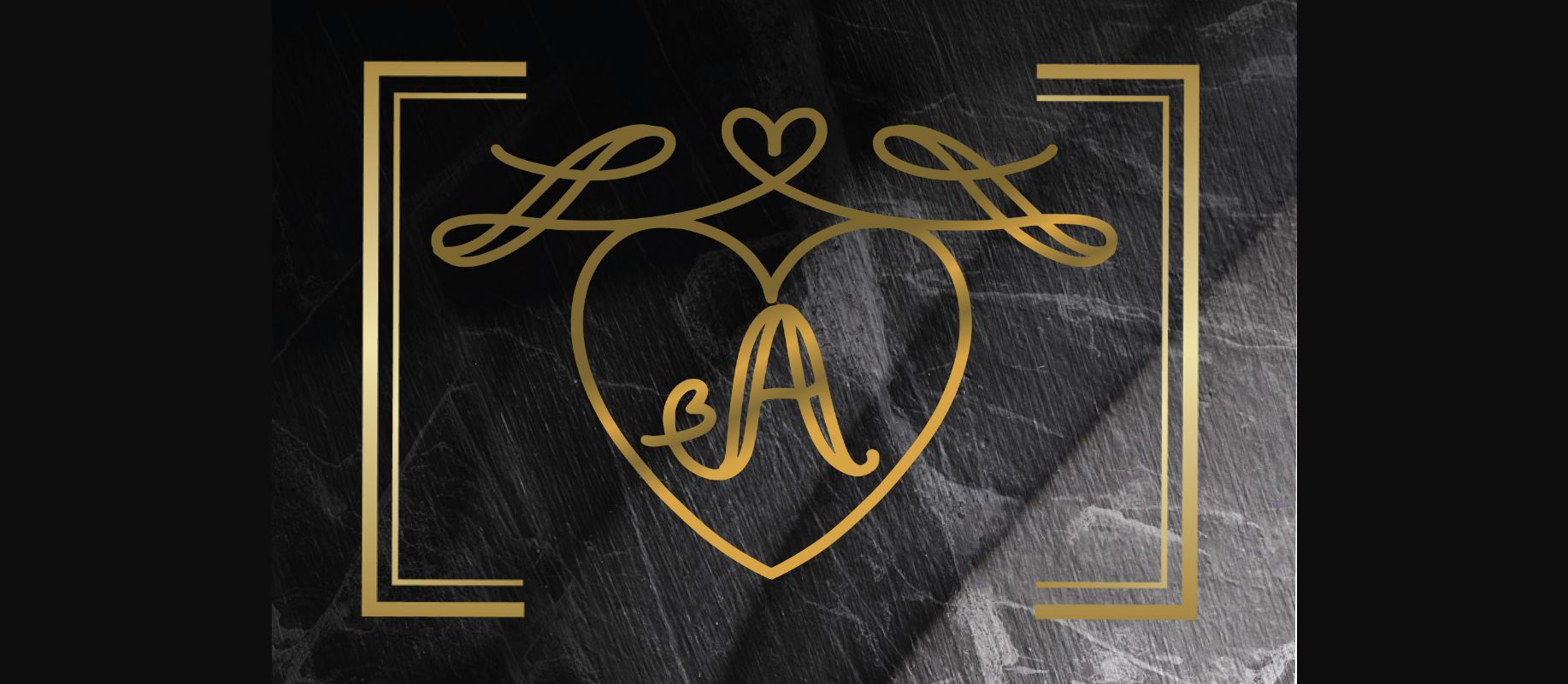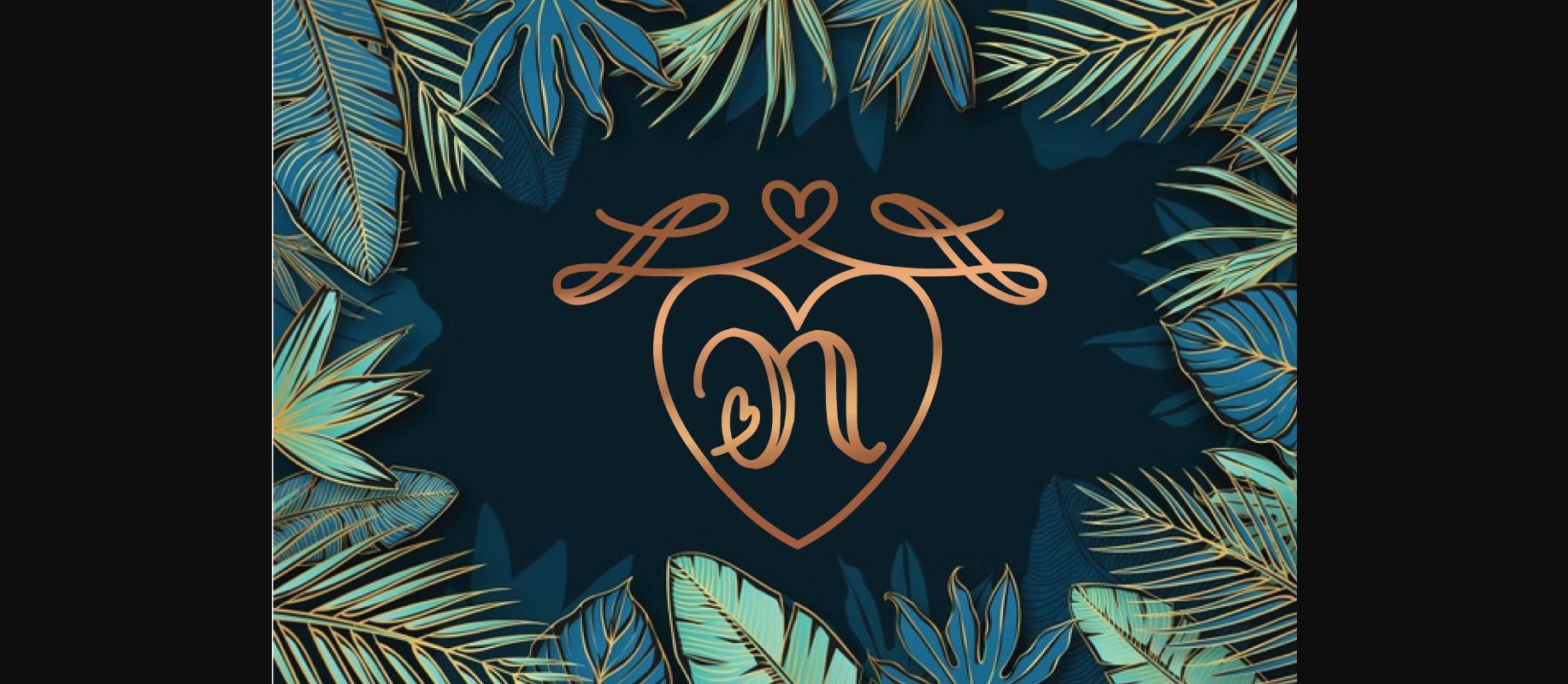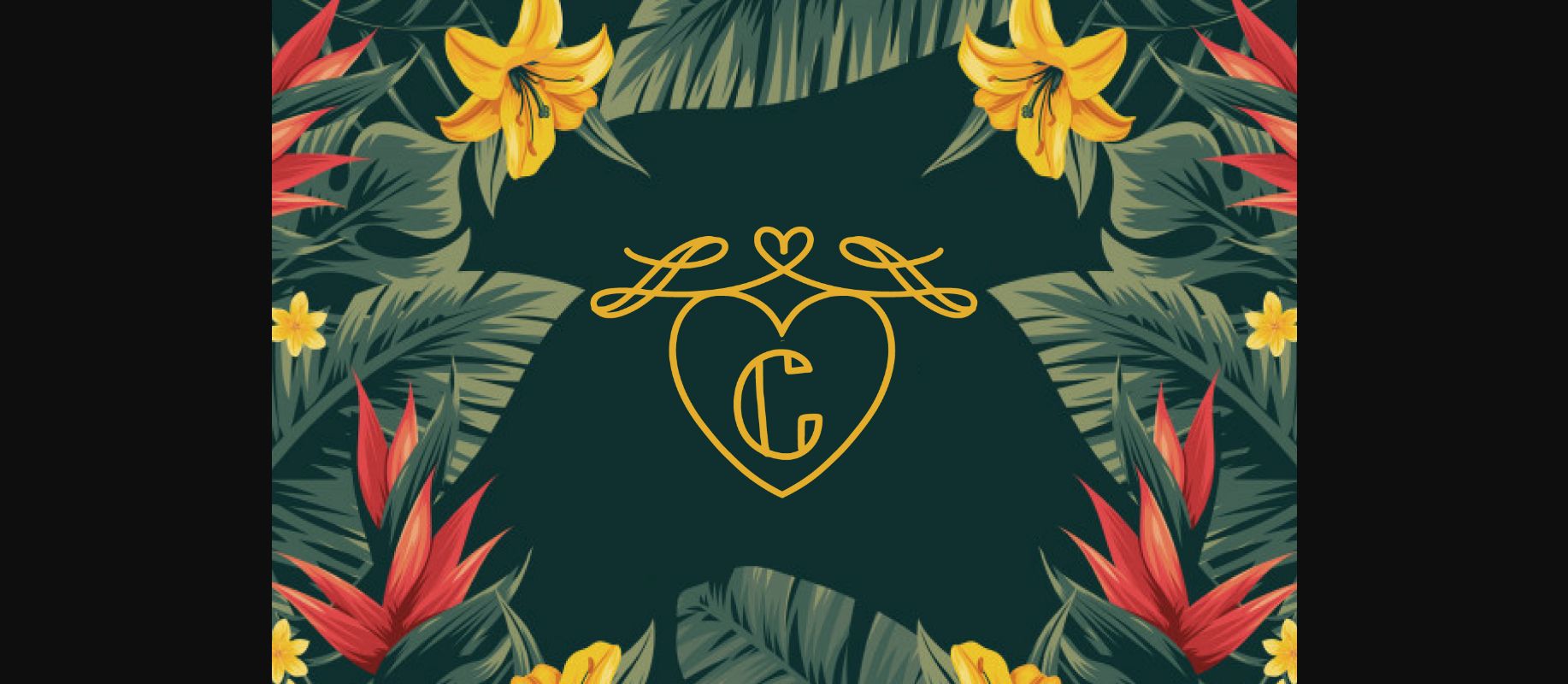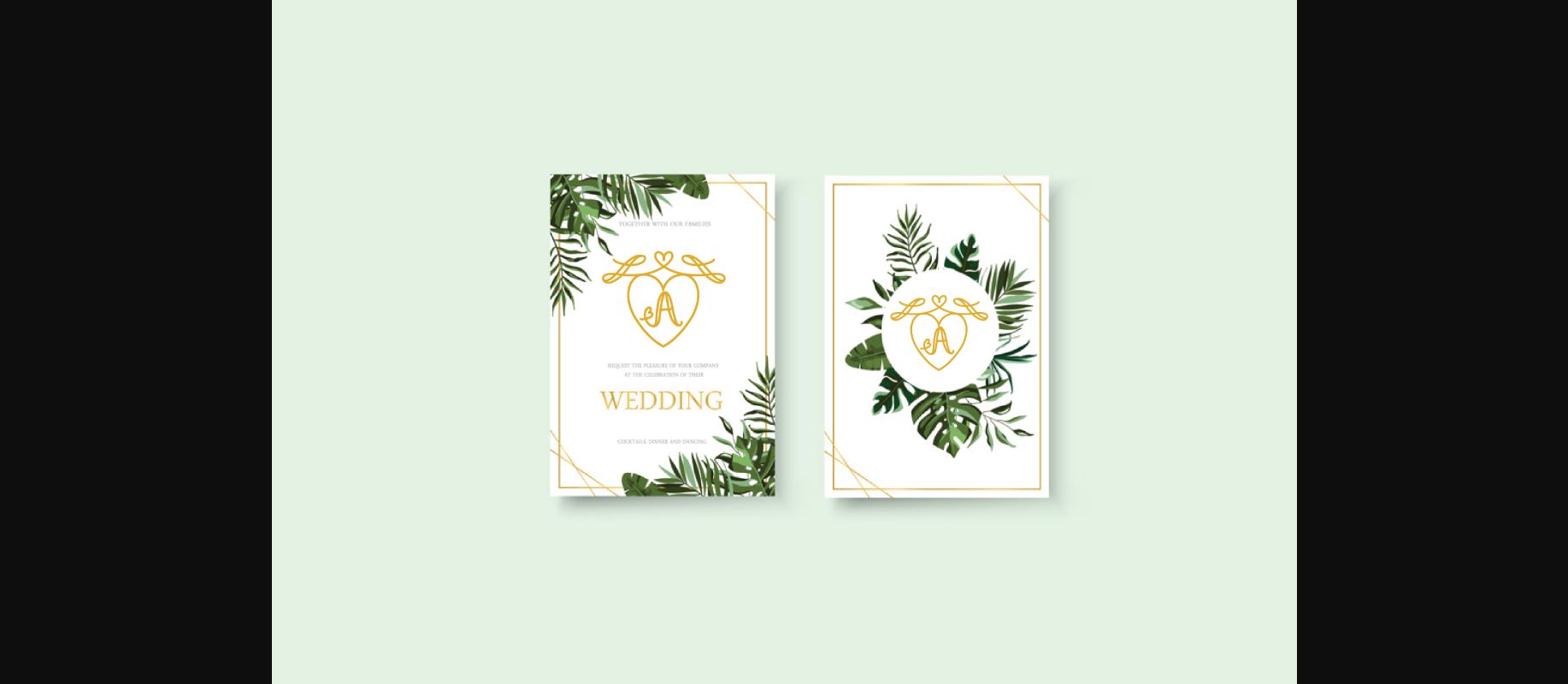
Monogram Love Font
About Monogram Love Font
Monogram Love is a sweet decorative font, featuring a lovely heart ornament. Fall in love with its authentic feel and use it to create gorgeous wedding invitations, beautiful stationary art, eye-catching social media posts, and cute greeting cards.